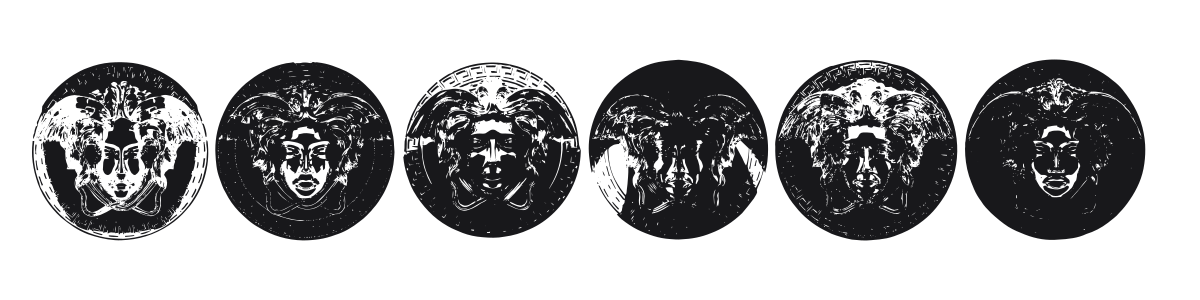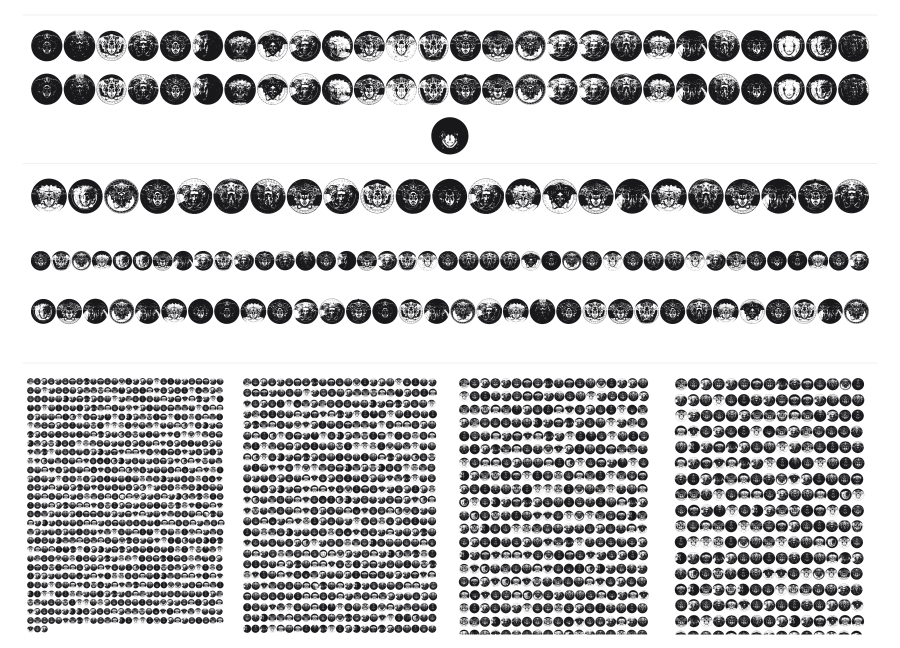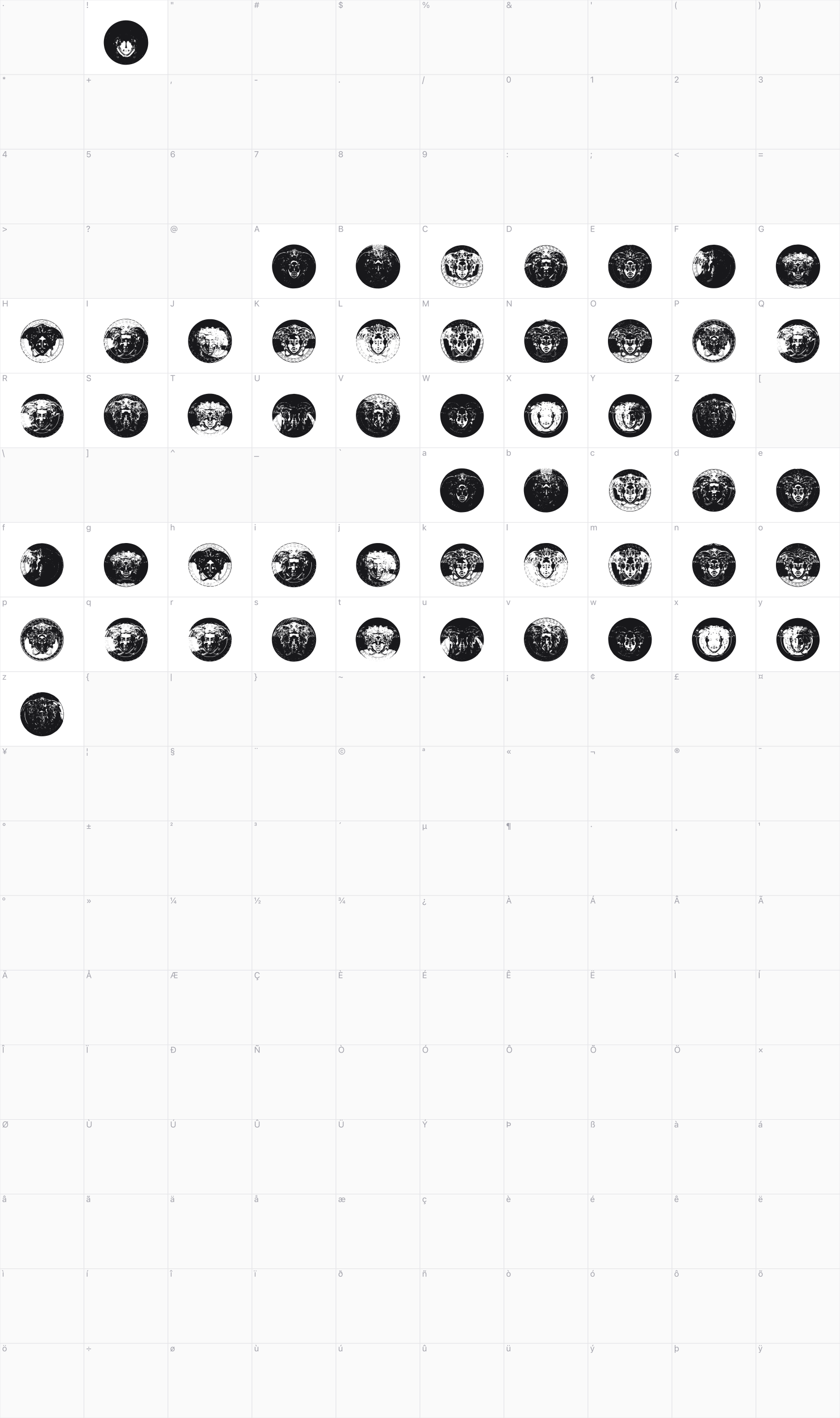
Medusa
Medusa is a dingbat font built from a collection of Medusa head medallions in the style of the iconic Versace emblem. Each glyph is a circular coin-like symbol rendered at different levels of distress, from sharp engravings to heavily weathered impressions. The set is immediately useful for fashion-adjacent branding, luxury packaging, or anywhere a mythological ornament is needed.